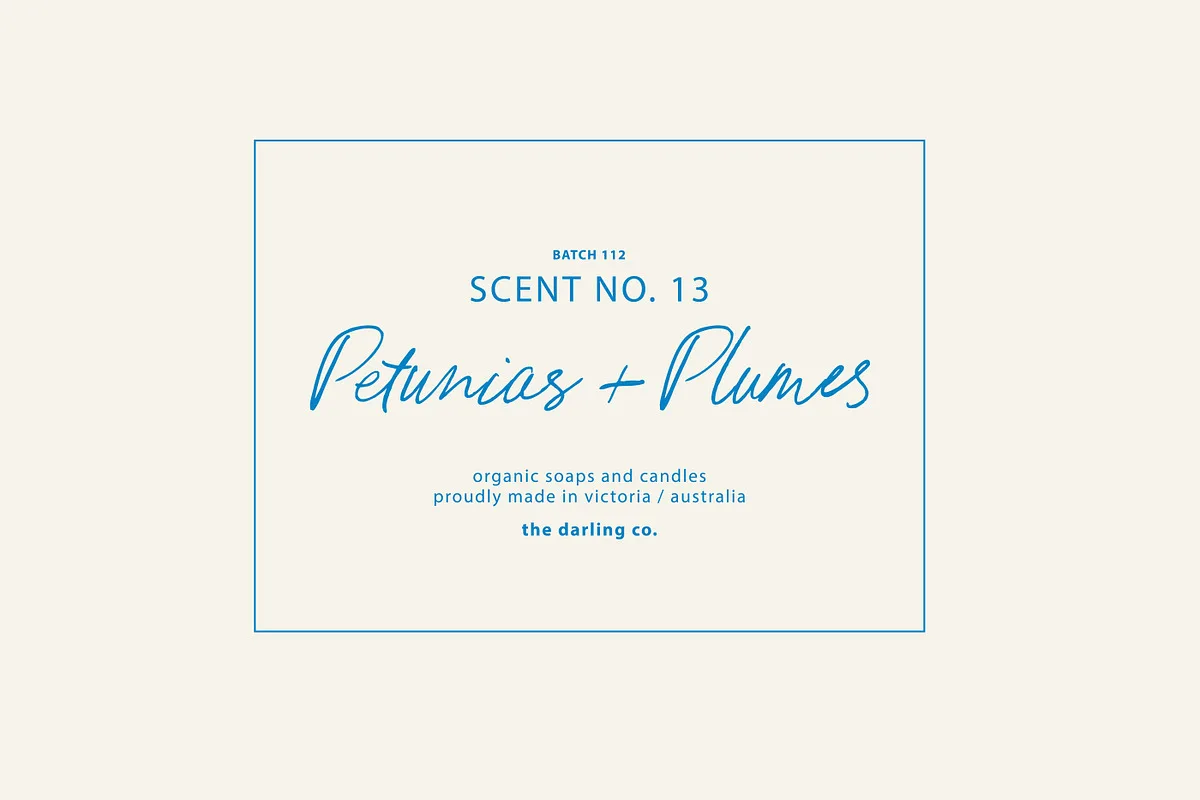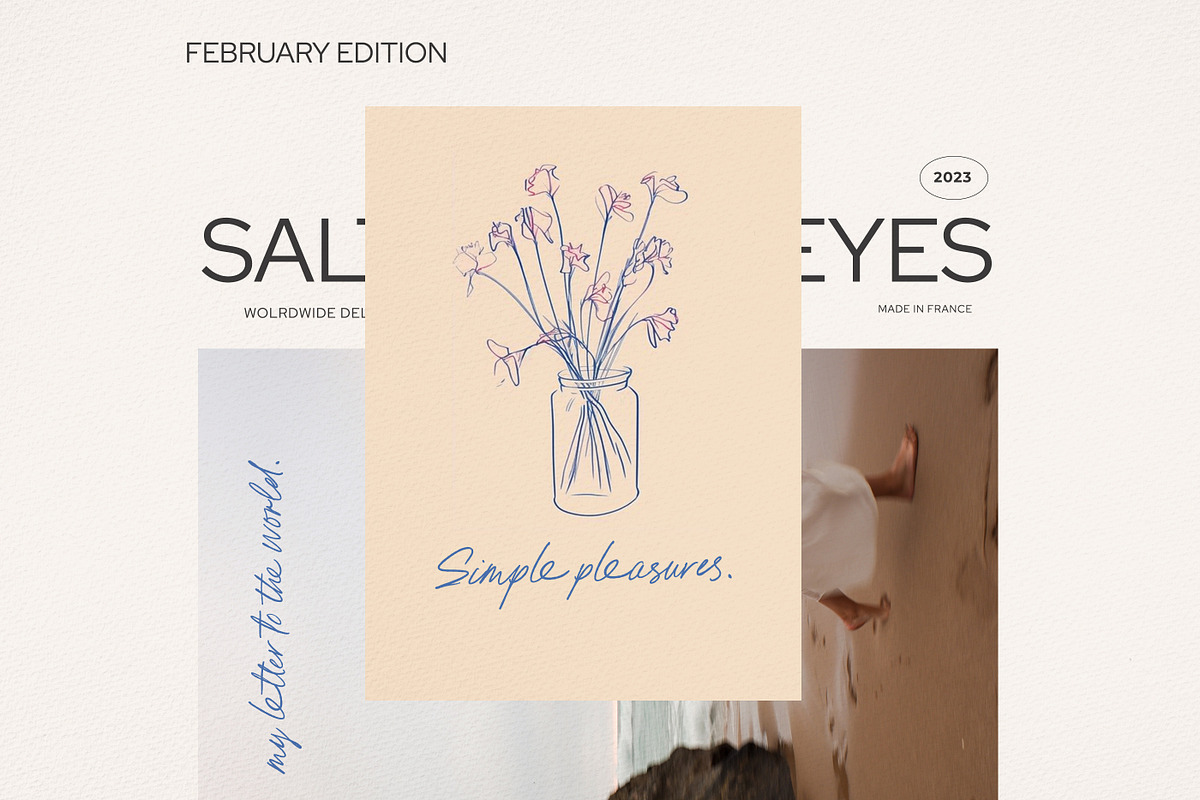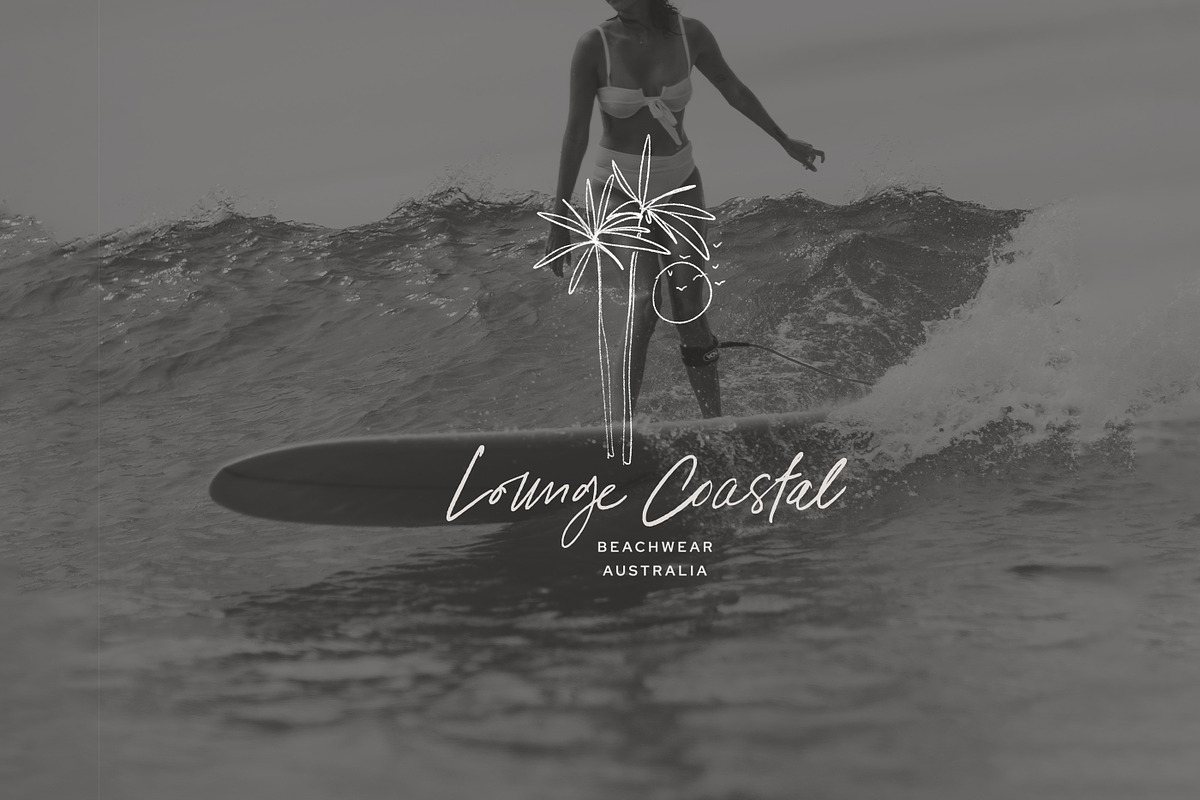
Pink Champagne is designed to emulate natural handwriting, with inky, wobbly edges to add to it’s authenticity – perfect for adding that natural-looking handwritten touch to your designs.
It also has a large selection of Opentype ligatures to make her appear even more natural and free flowing. Make sure you have your Ligatures turned on if you’d like to activate them, or turn pairs on and off as you’d like them in your type settings.
Pink Champagne Script Font